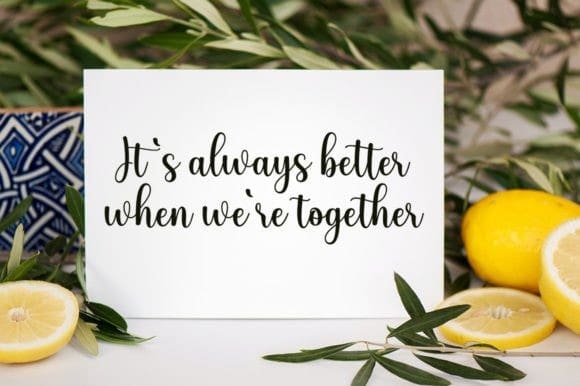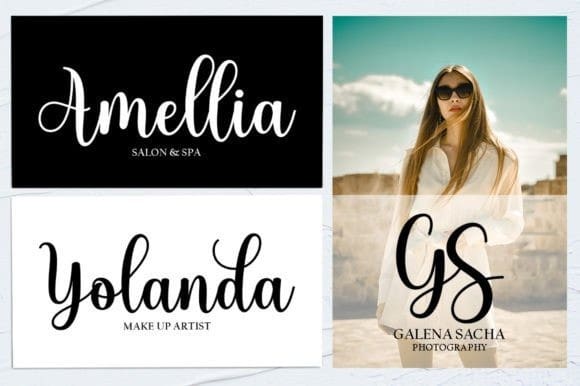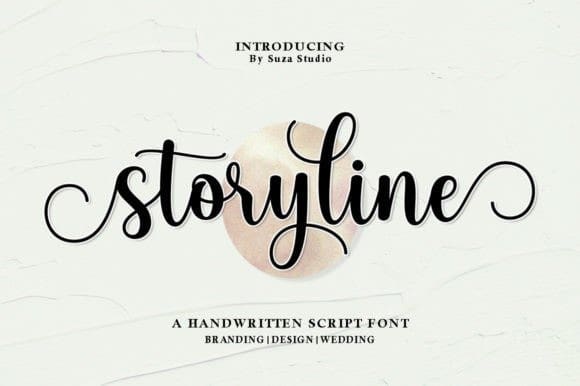
Story Line Font
Story Line Font is a sweet and romantic calligraphic typeface with characters dancing along the baseline. It will add luxury to any design project you want to create! This font is PUA encoded, which means you can access all of the glyphs and swashes with ease!